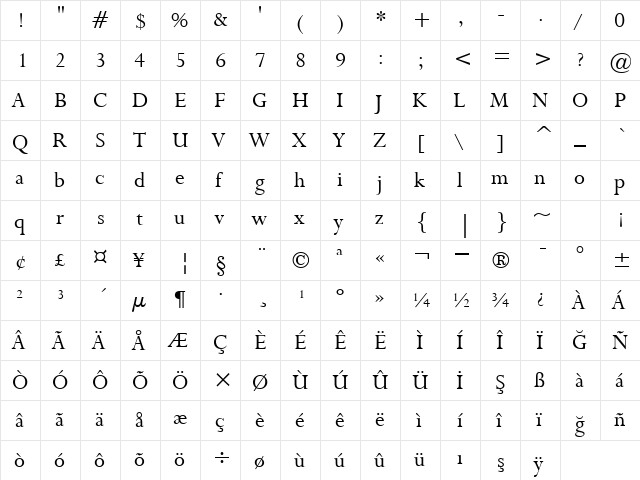
00216 Regular
Design Context for 00216 Typeface
00216 takes a measured approach to typography — its balanced proportions and neutral character make it a reliable workhorse for both digital and print work.